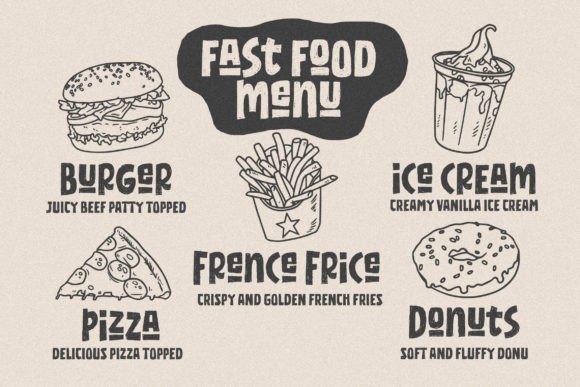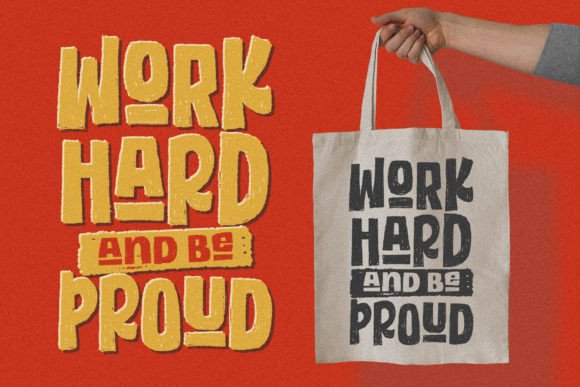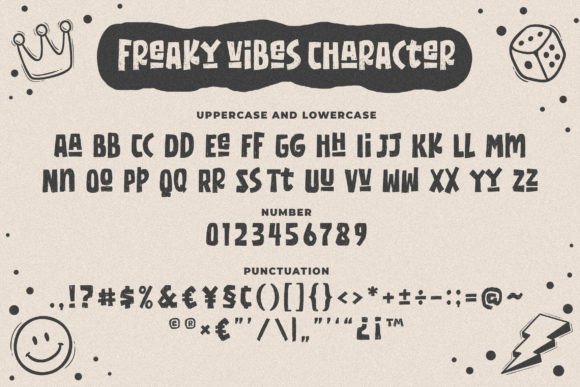
Unleash Your Creativity with Freaky Vibes Font
What Makes Freaky Vibes Font Special?
Freaky Vibes Font is a unique typeface that masterfully blends rugged textures with contemporary style. This distinctive charm makes it an ideal choice for designers, crafters, and creative hobbyists looking to add character and personality to their projects.
Key Features
- Unique Texture: The font boasts a captivating rough texture that exudes authenticity and individuality, setting it apart from conventional typefaces.
- Versatility: Freaky Vibes Font is designed to meet diverse design needs. Whether you’re working on branding, logotypes, displays, posters, or even food-related projects, this font is your go-to choice for a touch of rustic elegance.
- Bold Presence: Make a statement with the bold and impactful presence of Freaky Vibes Font. Its strong and confident strokes command attention, ensuring your message is conveyed with style.
Honest Review
- ✨ Instant Recognition: The unique texture and bold presence of Freaky Vibes Font make it instantly recognizable.
- ✅ Highly Versatile: The font’s adaptability to various design projects is impressive.
- 💡 Inspires Creativity: The distinctive charm of Freaky Vibes Font sparks creativity and encourages experimentation.
⚠️ While Freaky Vibes Font is incredibly versatile, it’s essential to note that its bold presence may not be suitable for projects requiring a more delicate or subtle approach. Additionally, some users may find the texture a bit too rough for certain applications.
🤔 One minor limitation is that Freaky Vibes Font may not be the best choice for body text or lengthy paragraphs, as its bold presence and texture may be overwhelming.
| Font Name | Freaky Vibes Font |
| What type of projects is Freaky Vibes Font best suited for? | Freaky Vibes Font is ideal for branding, logotypes, displays, posters, and food-related projects. |
| Is Freaky Vibes Font available in different weights or styles? | Currently, Freaky Vibes Font is available in a single weight. However, the font’s versatility and OpenType features make it adaptable to various design needs. |